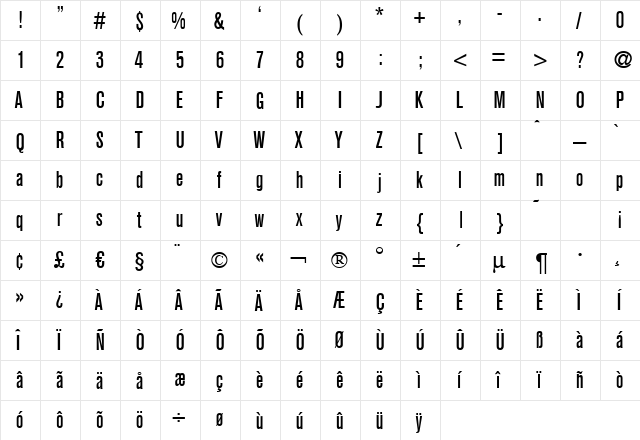
A750-Sans-Cd-Medium Regular
Design Context for A750-Sans-Cd-Medium Typeface
A750-Sans-Cd-Medium is a composed and adaptable typeface that performs quietly and consistently across a wide range of design contexts.